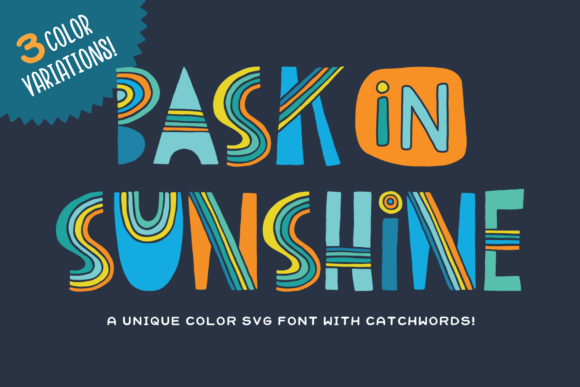
Unleashing Creativity with the Bask in Sunshine Font
Have you ever found yourself sitting in a sun-drenched room, surrounded by blank pages and a blank mind? Suddenly, a burst of creativity hits you, and the words start flowing. That’s exactly what the Bask in Sunshine Font is designed to inspire – a sense of joy and playfulness that brings your designs to life.
This charming hand-drawn color font is more than just a pretty face; it’s a powerful tool for designers looking to add a touch of whimsy to their work. With automatic ligatures and catchwords at your fingertips, you can create unique and eye-catching designs with ease. Whether you’re a seasoned pro or just starting out, the Bask in Sunshine Font is the perfect companion for bringing your creative vision to life.
Bask in Sunshine Font Key Features
- Unique Characteristics: Bask in Sunshine Font features a unique blend of modern and classic elements, with elegant curves and subtle texture, creating a warm and inviting atmosphere.
Bask in Sunshine Font Review
First off, I have to say that the “Bask in Sunshine Font” is quite a charming and cheerful font. ✨ It’s perfect for any project that needs a bright and uplifting feel. The font’s rounded edges and subtle imperfections give it a hand-drawn feel that’s hard to resist.
Here are some of the things I love about this font:
- Unique character: The “Bask in Sunshine Font” stands out from more common fonts, making it perfect for anyone looking to add some personality to their project.
- Flexibility: This font can be used for a wide range of projects, from children’s books to social media graphics.
- Legibility: Despite its playful feel, the font is still easy to read, even at smaller font sizes.
- Customizability: While the font is unique, it’s not particularly customizable, which might be a problem for some users.
- Font sizes: At very small font sizes, the font can become difficult to read.
Overall, I think the “Bask in Sunshine Font” is a great choice for anyone looking for a cheerful and playful font. With a little bit of planning, it’s easy to work around the limitations and create something truly special.
Tips for Getting the Most Out of Bask in Sunshine Font
Use Bask in Sunshine Font to add a touch of warmth and elegance to your designs. Consider using it for:
- Invitations and event graphics.
- Food and drink branding.
- Travel and hospitality graphics.
Remember to pair the font with a clean and simple design to let the Bask in Sunshine Font be the focal point.